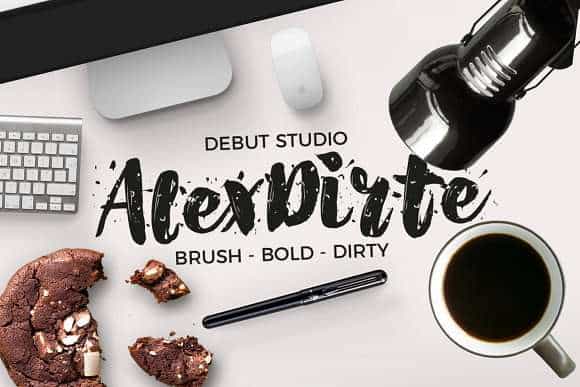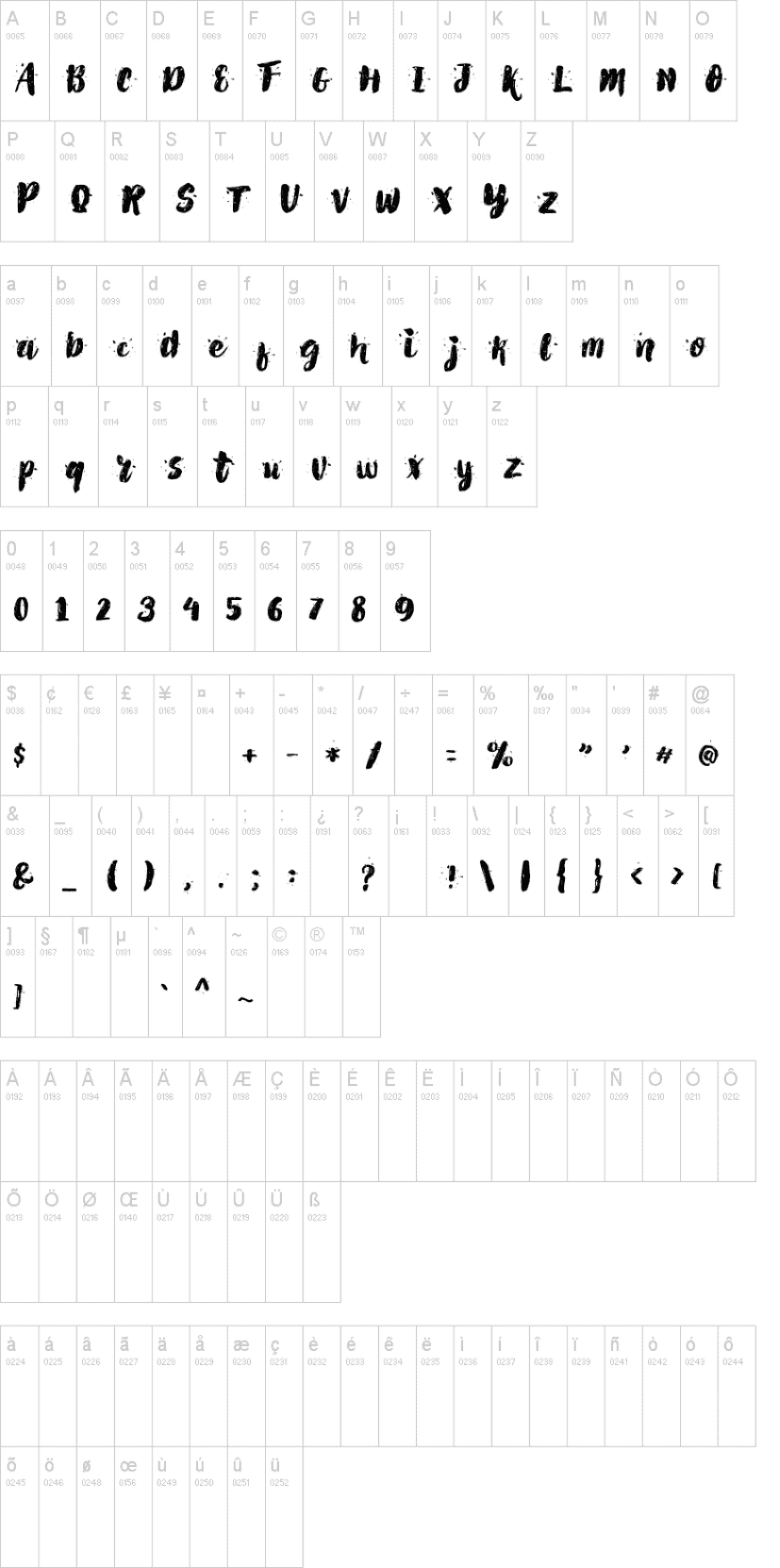
Meet our newest brush font. This brush font is unlike the previous one, alexdirte has a bold gritty texture on every letters. this font looks nice in both upper case and lower case.